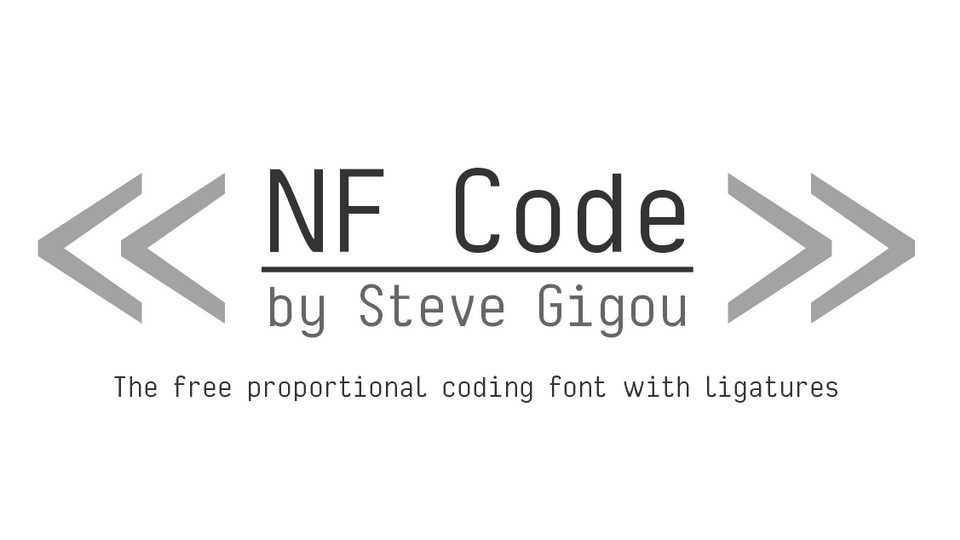
Download NF Code font, a proportional coding typeface with ligatures. NF Code is design around clarity and readability, even at small sizes.
Designer: Steve Gigou